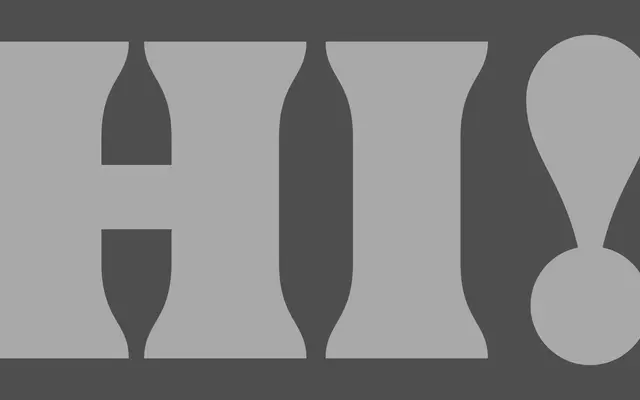
Elephant specimen from Playtype
A characterful display serif from Playtype, framed through the dramatic and contradictory nature of a compelling character study.
Elephant is a display typeface from Copenhagen's Playtype foundry, presented through a short specimen built around the theatrical tension of a character who resists yet returns to acting. The copy suggests a typeface suited to editorial and cultural contexts where personality and narrative weight matter. Minimal detail is available from the page itself, though Playtype's output consistently favours strong, opinionated type for print and identity work.
The name and the brief quote-driven presentation suggest a bold, characterful display typeface; classified as display serif based on Playtype's typical aesthetic and the dramatic, theatrical framing of the specimen copy.